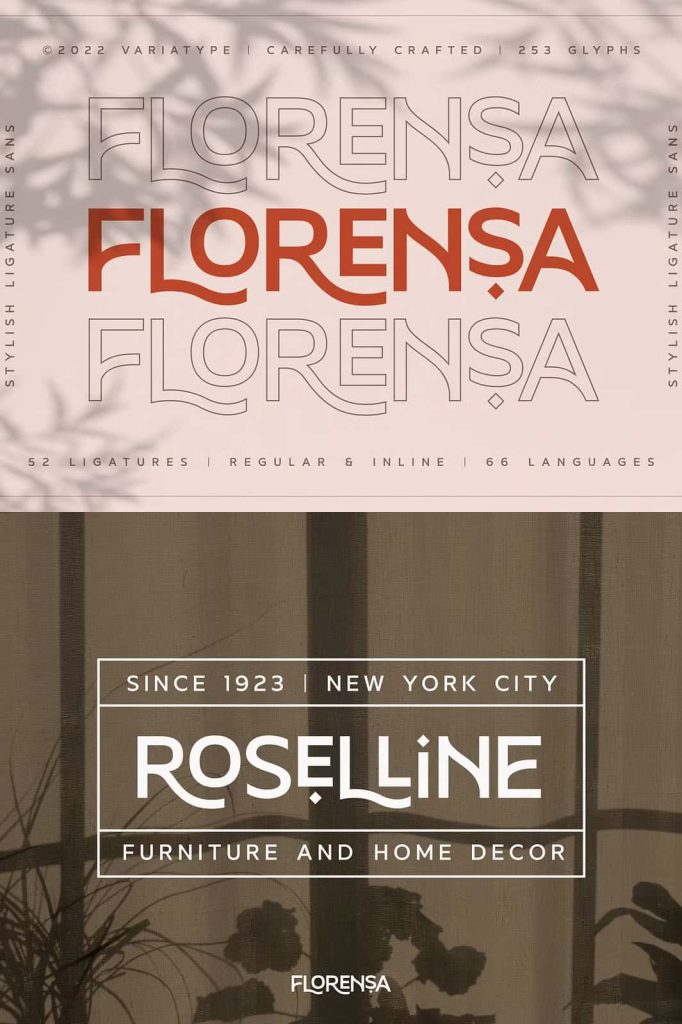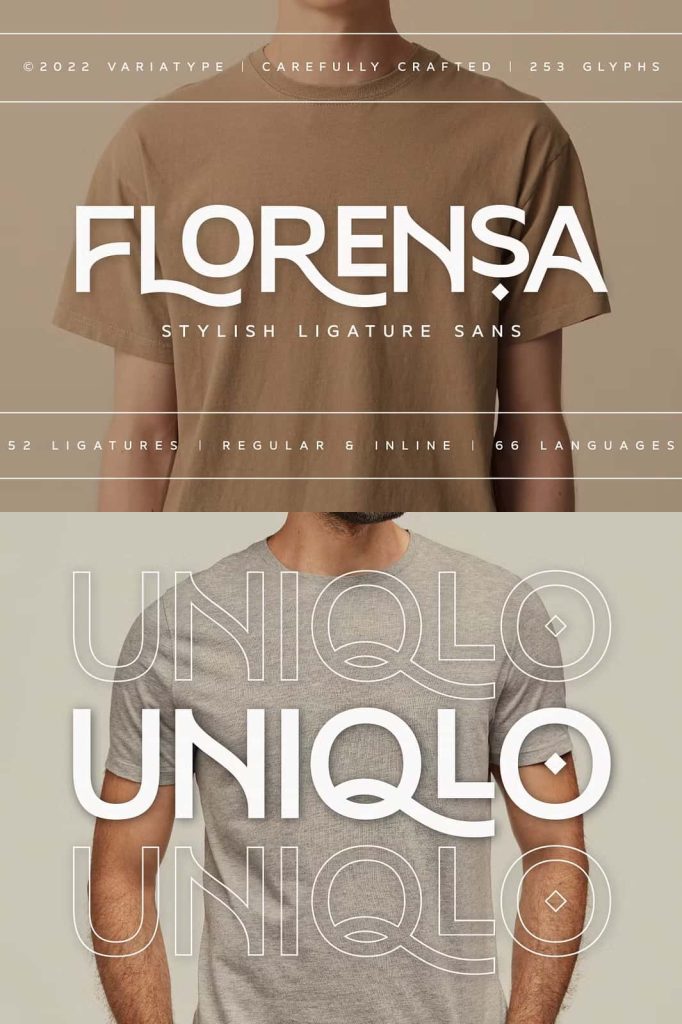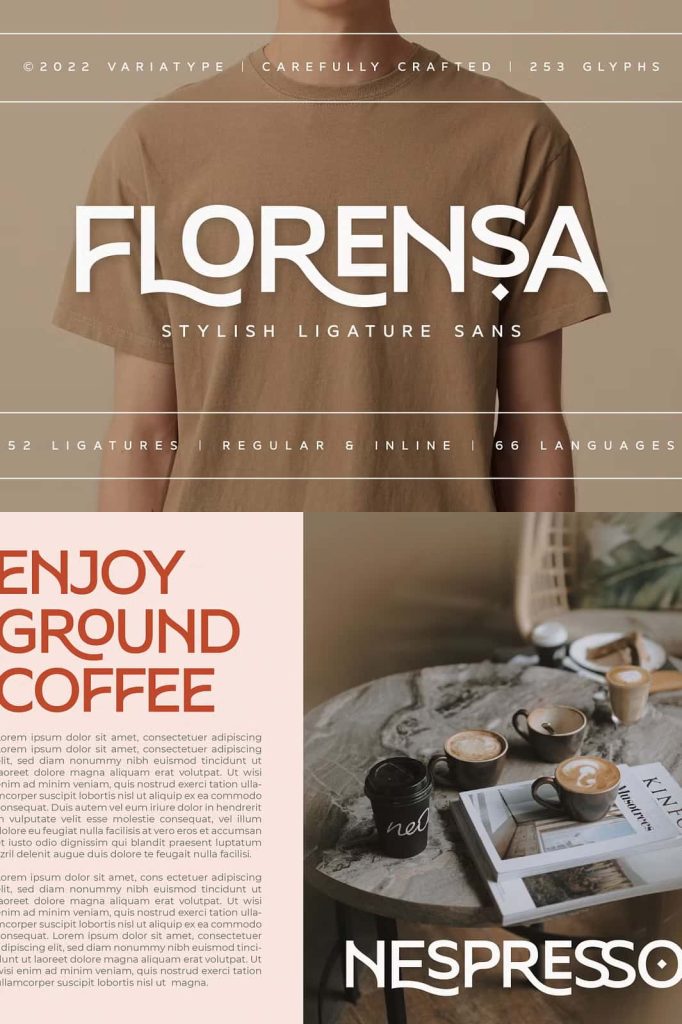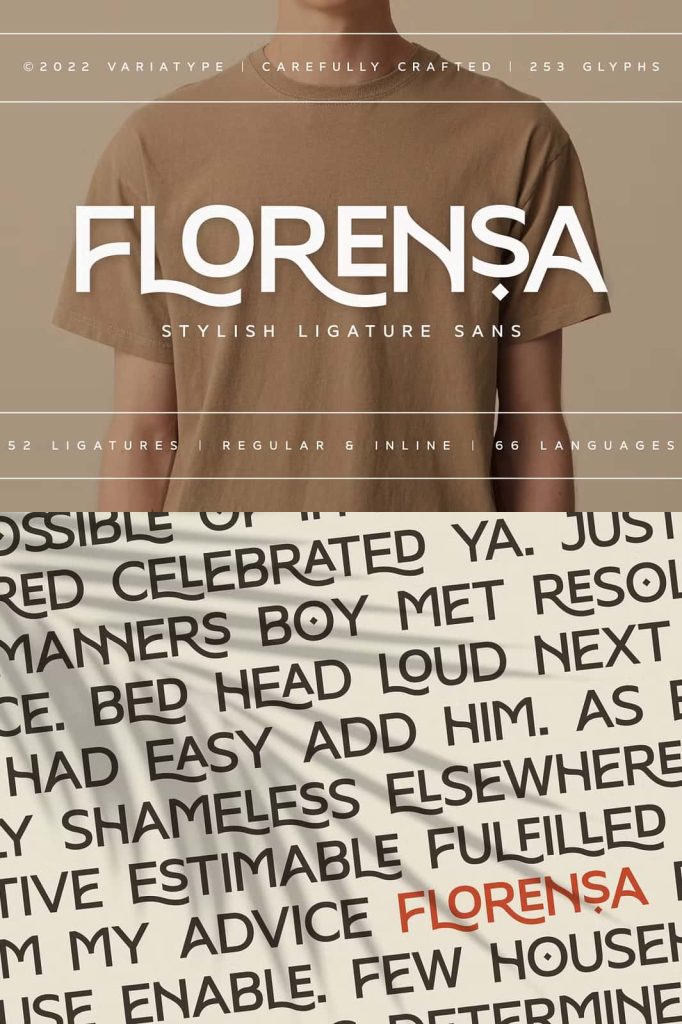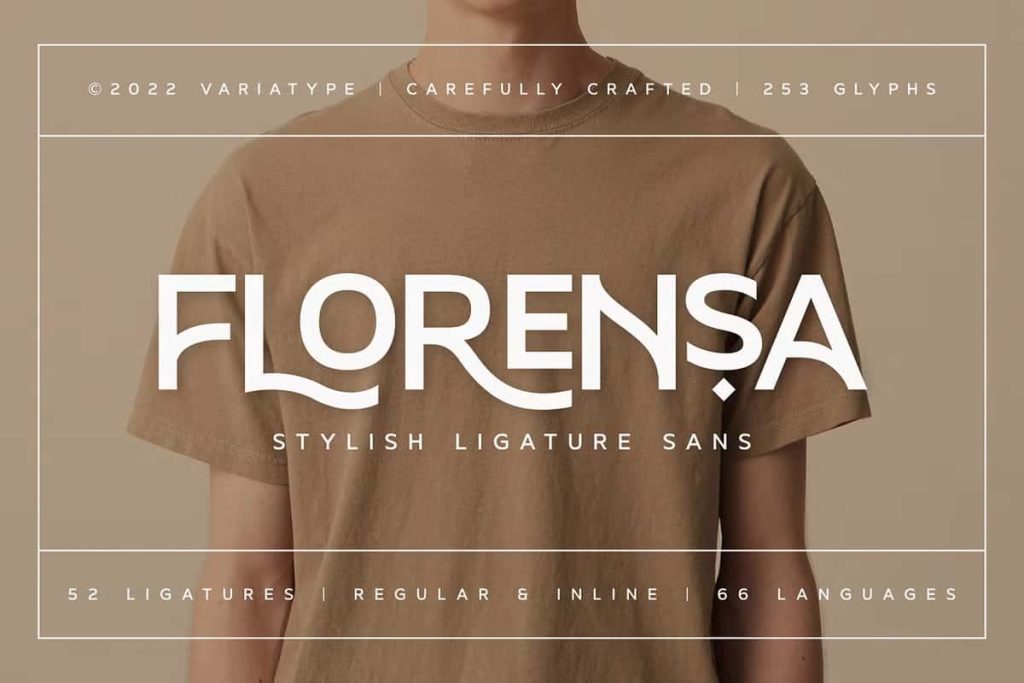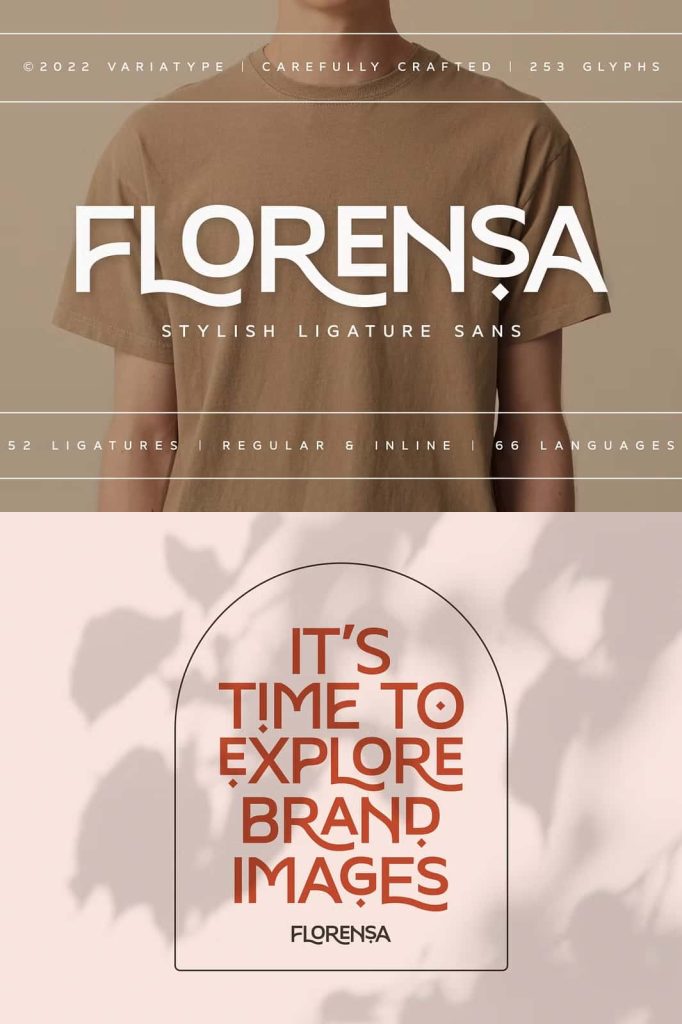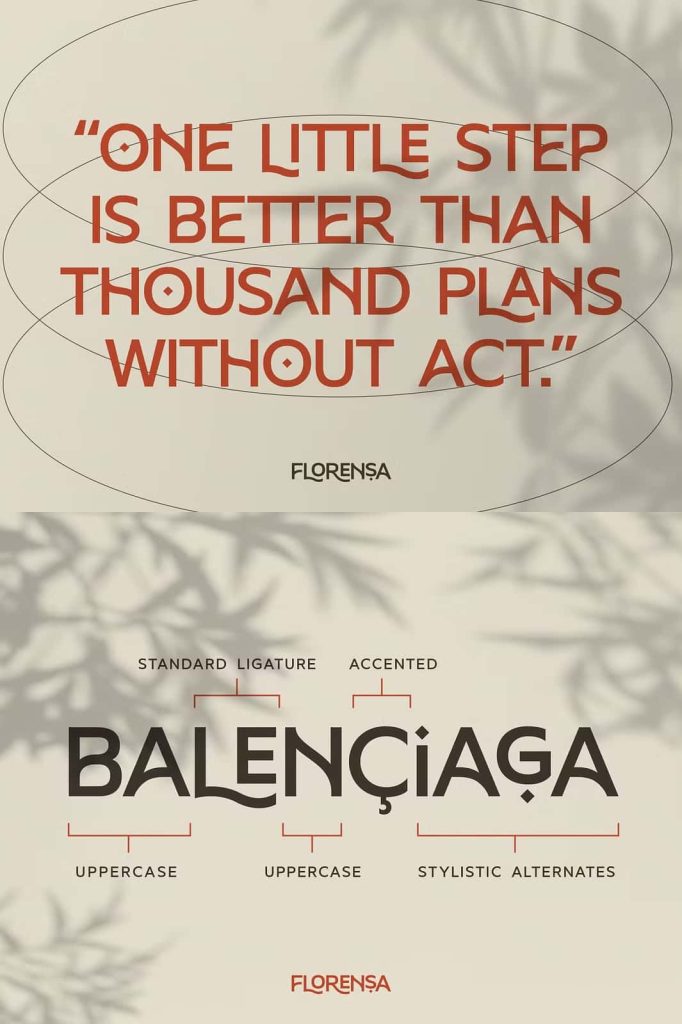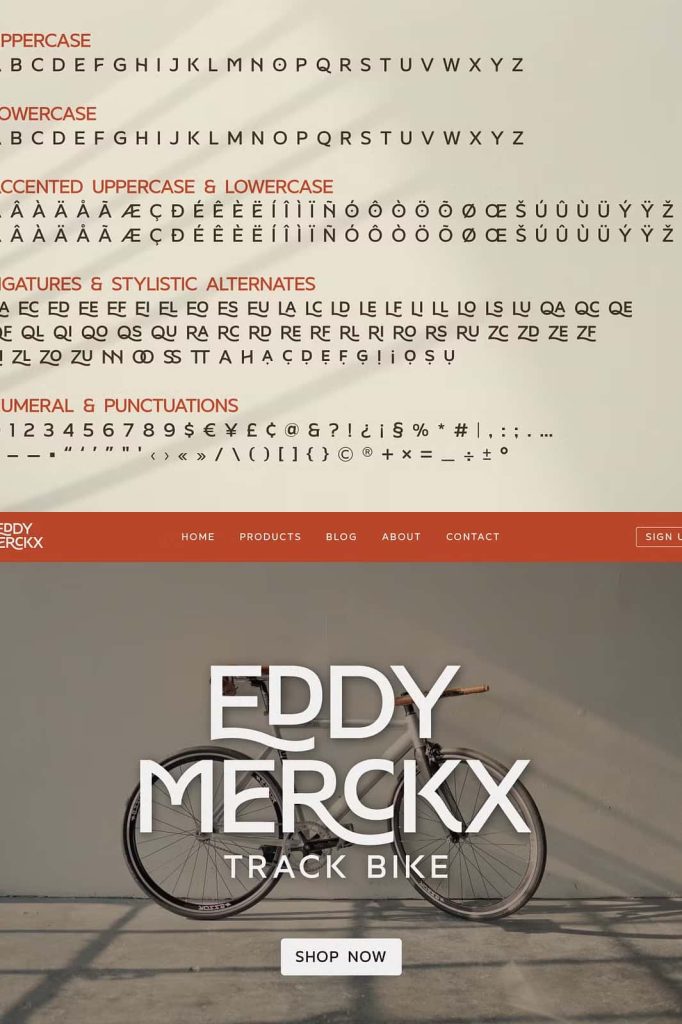
Florensa Font
The Florensa font is a carefully crafted modern typeface designed to bring elegance, creativity, and personality into contemporary design projects. Created with passion and attention to detail, Florensa offers a beautiful typographic style that helps designers produce visually engaging and stylish layouts. The font combines modern letterforms with expressive ligatures, allowing text to appear smooth, artistic, and full of character.
Typography plays a crucial role in shaping visual identity. Designers constantly look for fonts that not only communicate information clearly but also add personality to a design. Florensa answers this need by offering a flexible typeface that blends elegance with playful creativity. Its refined structure and decorative features make it an excellent choice for posters, branding projects, logotypes, and a wide range of graphic design applications.
Whether designers work on digital media or printed materials, Florensa provides the versatility needed to produce professional and visually appealing typography. The font helps transform simple words into expressive design elements that capture attention and strengthen visual storytelling.
A Typeface Designed with Care and Creativity
The development of the Florensa font focused on achieving a balance between beauty and functionality. Each letter was designed carefully to ensure that the overall typeface feels harmonious and visually pleasing. The shapes maintain smooth curves and balanced proportions, creating a refined typographic rhythm throughout the text.
This thoughtful design process ensures that Florensa performs well in a variety of creative environments. Designers can confidently use the font in both large display settings and smaller typographic compositions without losing its visual charm.
Because of its polished structure, Florensa adapts easily to different creative directions. Designers can incorporate the font into elegant branding projects, expressive posters, and modern graphic compositions while maintaining a consistent visual identity.
More Than 50 Beautiful Ligatures
One of the most exciting features of the Florensa typeface is its extensive collection of ligatures. The font includes more than 50 carefully designed ligatures that allow designers to create smooth and visually engaging letter combinations. Ligatures connect specific pairs of characters in a natural and artistic way, improving the flow and appearance of words.
These typographic details help Florensa stand out from ordinary fonts. Instead of displaying rigid letter spacing, the ligatures introduce subtle variations that mimic the elegance of custom lettering. Designers can use these combinations to add personality and sophistication to their text.
By activating ligatures in compatible design software, designers can quickly transform simple typography into stylish lettering compositions. This feature makes Florensa particularly valuable for projects where visual creativity and unique typography play an important role.
Perfect for Poster and Graphic Design
The Florensa font works especially well in poster design and graphic compositions that require bold visual impact. Posters often rely on strong typography to communicate messages quickly and attract attention. Florensa provides that visual strength while maintaining elegance and artistic style.
The font’s decorative ligatures and balanced letterforms help create eye-catching headlines and creative typographic layouts. Designers can experiment with different letter combinations to produce unique compositions that feel custom-made.
Graphic designers also benefit from the font’s versatility. Florensa adapts easily to magazine layouts, social media graphics, advertising materials, and promotional designs. Its playful yet refined style allows it to complement a wide range of visual themes.
Ideal for Logotype and Branding Projects
Brand identity design often requires typography that feels distinctive and memorable. The Florensa font provides exactly that through its elegant structure and expressive ligatures. Designers can use the font to create logos that feel modern, stylish, and highly recognizable.
The decorative ligatures offer designers an opportunity to customize brand names and headlines without needing to draw custom lettering from scratch. This feature saves time while still allowing creative freedom in the design process.
Florensa works particularly well for lifestyle brands, fashion labels, creative studios, and boutique businesses. Its combination of elegance and playfulness helps brands communicate creativity and individuality through typography.
A Modern Typeface for Creative Expression
Modern design projects require fonts that can adapt to different creative challenges. Florensa meets this demand by offering a typeface that feels both contemporary and expressive. Its clean structure ensures readability, while the ligatures add decorative flair that enhances visual appeal.
Designers can use Florensa to explore creative typography without sacrificing professionalism. The font encourages experimentation with layout, spacing, and letter combinations, helping designers discover new visual possibilities.
Whether used in bold headlines or elegant brand marks, Florensa supports a wide range of design styles. Its artistic character helps elevate ordinary text into visually engaging design elements.
Upgrade Your Design Creativity with Florensa
The Florensa font empowers designers to elevate their creative projects with modern and playful typography. With more than 50 beautiful ligatures, carefully designed letterforms, and strong visual versatility, the font provides everything needed to craft expressive and professional designs.
Designers working on posters, branding systems, logotypes, or graphic design projects can rely on Florensa to deliver distinctive results. Its elegant style and decorative features help transform simple text into memorable visual communication.
By combining careful craftsmanship with modern typographic creativity, Florensa becomes a powerful tool for designers who want to expand their design possibilities and create typography that feels fresh, stylish, and full of personality.